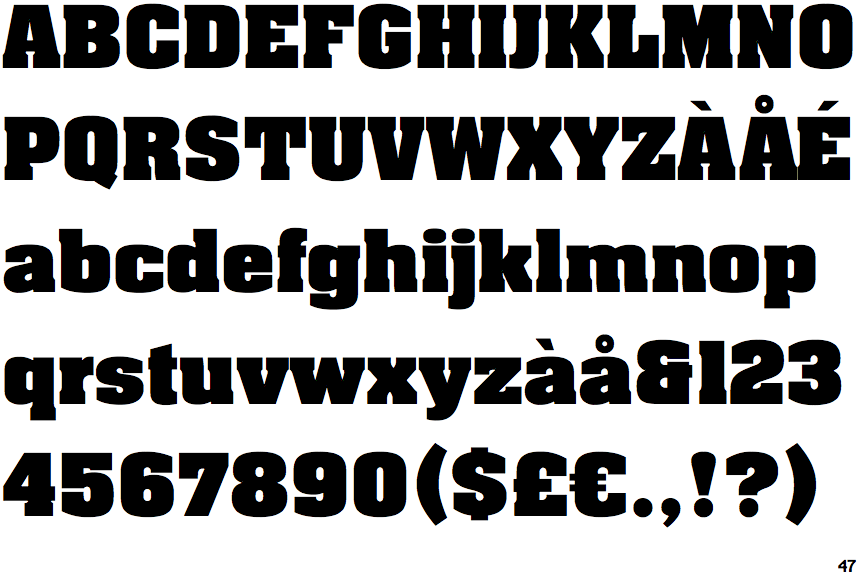
Neue Aachen Pro Semibold Font Free Download - It belongs to the neue aachen pro font family and falls under the. Download neue aachen pro font from free cdn or use it on your website as webfont. Neue aachen pro medium is a serif font designed by jim wasco. Neue aachen pro bold is a bold slab serif font designed by jim wasco. Aachen medium and bold, designed by colin brignall and alan meeks in 1969 are mainly intended as a title fonts. 'find my font' is an easy to use application for identifying fonts in digital images. Part of the neue aachen pro font family, it exudes a strong.
It belongs to the neue aachen pro font family and falls under the. Neue aachen pro bold is a bold slab serif font designed by jim wasco. Part of the neue aachen pro font family, it exudes a strong. Download neue aachen pro font from free cdn or use it on your website as webfont. Neue aachen pro medium is a serif font designed by jim wasco. 'find my font' is an easy to use application for identifying fonts in digital images. Aachen medium and bold, designed by colin brignall and alan meeks in 1969 are mainly intended as a title fonts.
Download neue aachen pro font from free cdn or use it on your website as webfont. 'find my font' is an easy to use application for identifying fonts in digital images. Neue aachen pro medium is a serif font designed by jim wasco. Neue aachen pro bold is a bold slab serif font designed by jim wasco. It belongs to the neue aachen pro font family and falls under the. Part of the neue aachen pro font family, it exudes a strong. Aachen medium and bold, designed by colin brignall and alan meeks in 1969 are mainly intended as a title fonts.
'find my font' is an easy to use application for identifying fonts in digital images. Part of the neue aachen pro font family, it exudes a strong. Download neue aachen pro font from free cdn or use it on your website as webfont. Neue aachen pro bold is a bold slab serif font designed by jim wasco. It belongs to.
Part of the neue aachen pro font family, it exudes a strong. Neue aachen pro bold is a bold slab serif font designed by jim wasco. 'find my font' is an easy to use application for identifying fonts in digital images. Aachen medium and bold, designed by colin brignall and alan meeks in 1969 are mainly intended as a title.
Download neue aachen pro font from free cdn or use it on your website as webfont. Neue aachen pro medium is a serif font designed by jim wasco. It belongs to the neue aachen pro font family and falls under the. Aachen medium and bold, designed by colin brignall and alan meeks in 1969 are mainly intended as a title.
Neue aachen pro medium is a serif font designed by jim wasco. 'find my font' is an easy to use application for identifying fonts in digital images. It belongs to the neue aachen pro font family and falls under the. Neue aachen pro bold is a bold slab serif font designed by jim wasco. Download neue aachen pro font from.
Neue aachen pro bold is a bold slab serif font designed by jim wasco. Part of the neue aachen pro font family, it exudes a strong. Download neue aachen pro font from free cdn or use it on your website as webfont. It belongs to the neue aachen pro font family and falls under the. Neue aachen pro medium is.
Part of the neue aachen pro font family, it exudes a strong. Download neue aachen pro font from free cdn or use it on your website as webfont. Aachen medium and bold, designed by colin brignall and alan meeks in 1969 are mainly intended as a title fonts. It belongs to the neue aachen pro font family and falls under.
Part of the neue aachen pro font family, it exudes a strong. Aachen medium and bold, designed by colin brignall and alan meeks in 1969 are mainly intended as a title fonts. It belongs to the neue aachen pro font family and falls under the. 'find my font' is an easy to use application for identifying fonts in digital images..
It belongs to the neue aachen pro font family and falls under the. Neue aachen pro medium is a serif font designed by jim wasco. Aachen medium and bold, designed by colin brignall and alan meeks in 1969 are mainly intended as a title fonts. 'find my font' is an easy to use application for identifying fonts in digital images..
It belongs to the neue aachen pro font family and falls under the. Part of the neue aachen pro font family, it exudes a strong. 'find my font' is an easy to use application for identifying fonts in digital images. Download neue aachen pro font from free cdn or use it on your website as webfont. Neue aachen pro bold.
Neue aachen pro medium is a serif font designed by jim wasco. Neue aachen pro bold is a bold slab serif font designed by jim wasco. Download neue aachen pro font from free cdn or use it on your website as webfont. Aachen medium and bold, designed by colin brignall and alan meeks in 1969 are mainly intended as a.
Download Neue Aachen Pro Font From Free Cdn Or Use It On Your Website As Webfont.
Aachen medium and bold, designed by colin brignall and alan meeks in 1969 are mainly intended as a title fonts. 'find my font' is an easy to use application for identifying fonts in digital images. Part of the neue aachen pro font family, it exudes a strong. Neue aachen pro bold is a bold slab serif font designed by jim wasco.
It Belongs To The Neue Aachen Pro Font Family And Falls Under The.
Neue aachen pro medium is a serif font designed by jim wasco.